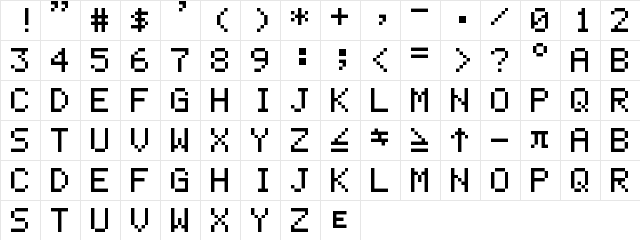
Casio FX-702P Regular
Design Context for Casio FX-702P Typeface
Casio FX-702P offers clean, dependable letterforms without strong stylistic allegiance, making it a practical choice for designers who need flexibility.